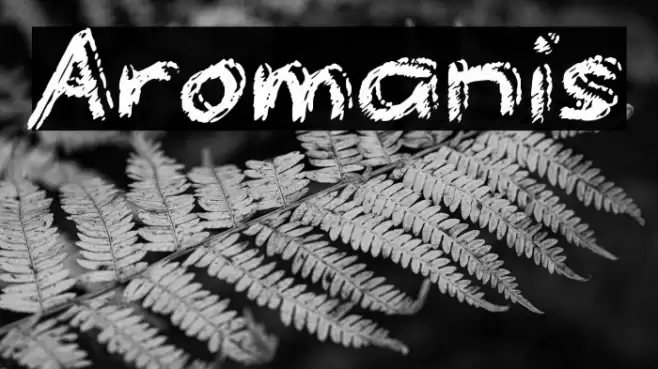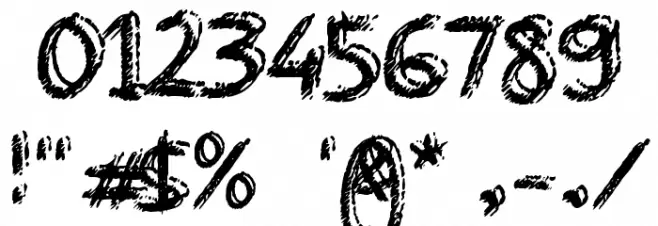
Aromanis Font
Aromanis Description
This font features a dynamic and energetic style, characterized by its rough, textured strokes that give it a hand-drawn appearance. The letters are bold and slightly irregular, adding a sense of movement and spontaneity. The uppercase and lowercase letters maintain a consistent style, with the uppercase being slightly more angular. Numbers and special characters follow the same textured pattern, ensuring uniformity across all glyphs. This font's unique style makes it stand out, offering a creative and artistic flair that can enhance visual projects.
A bold, textured font with a hand-drawn, energetic style from Uncategorized fonts.
- Proposed Projects: Ideal for creative projects such as posters, album covers, and artistic branding that require a bold and expressive typeface.